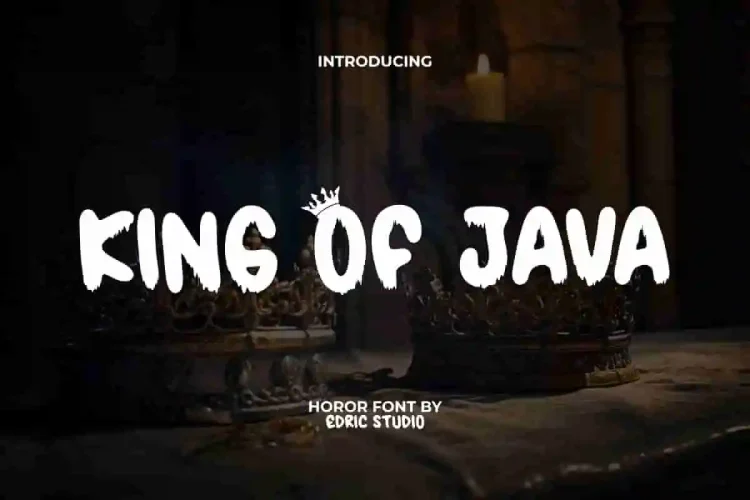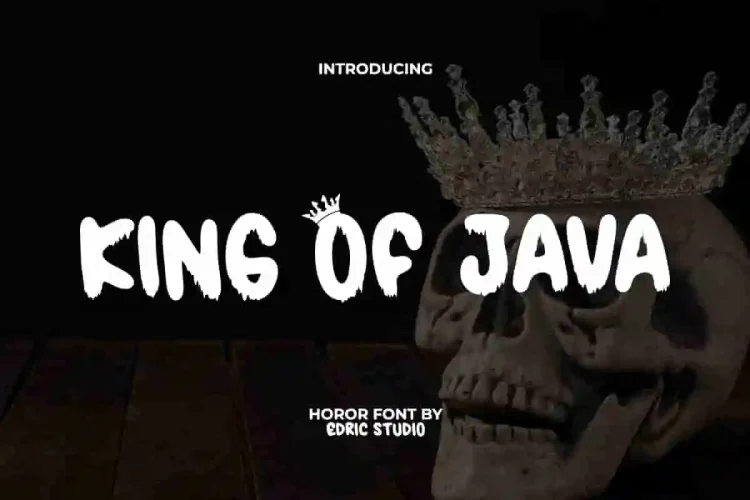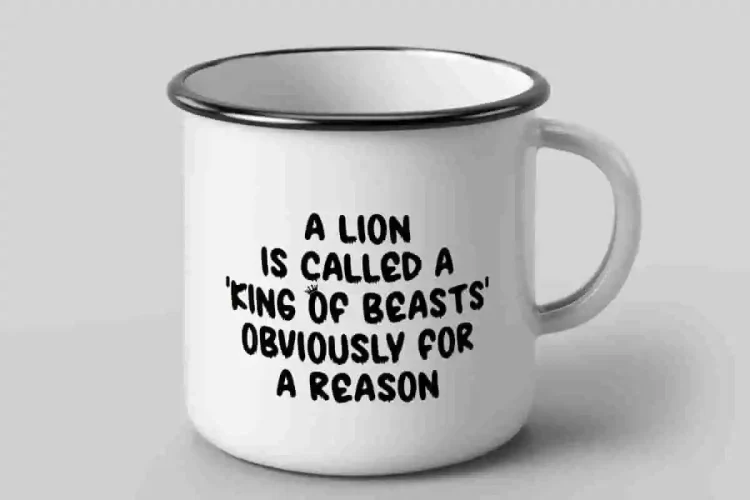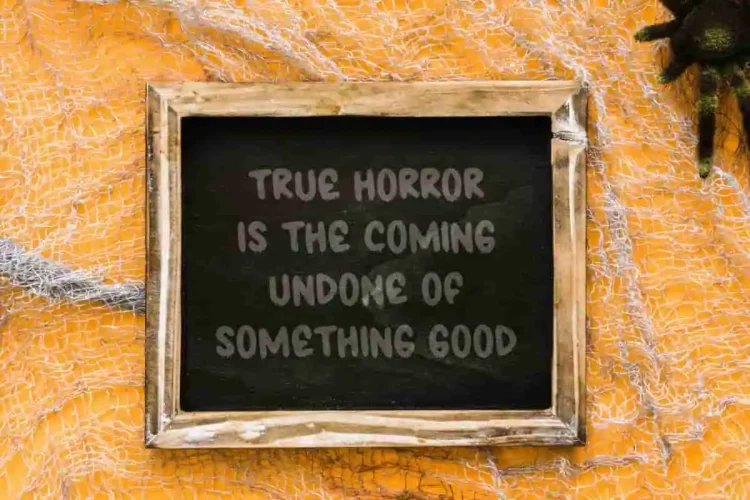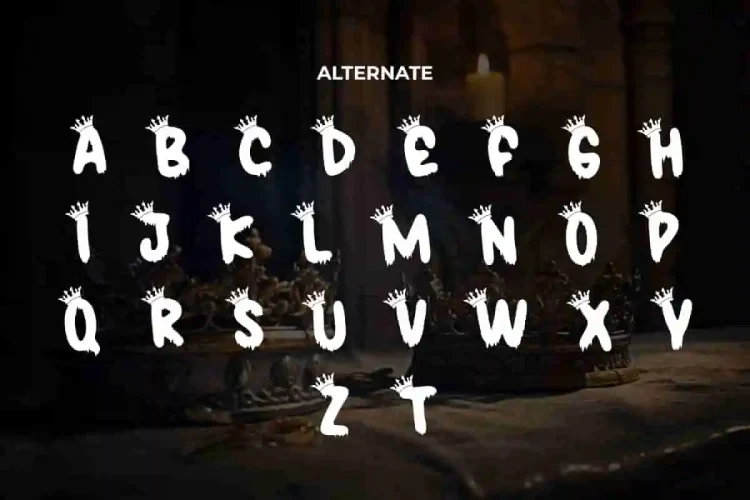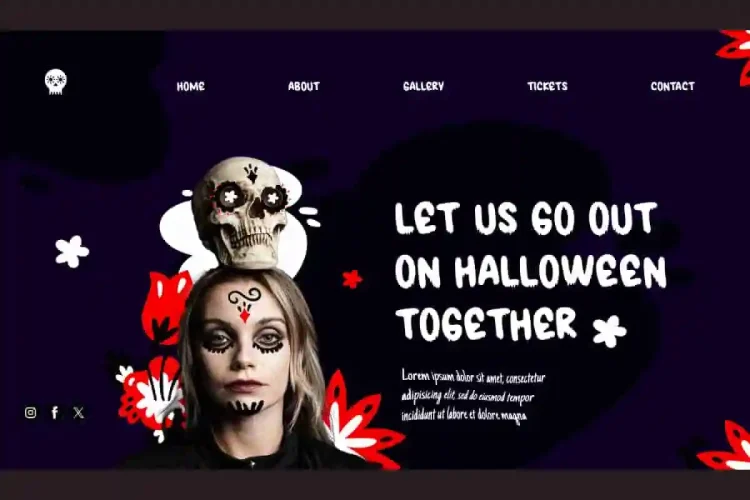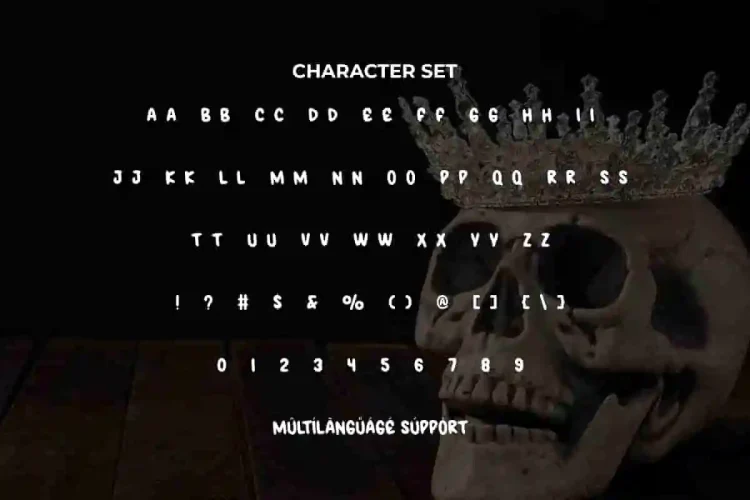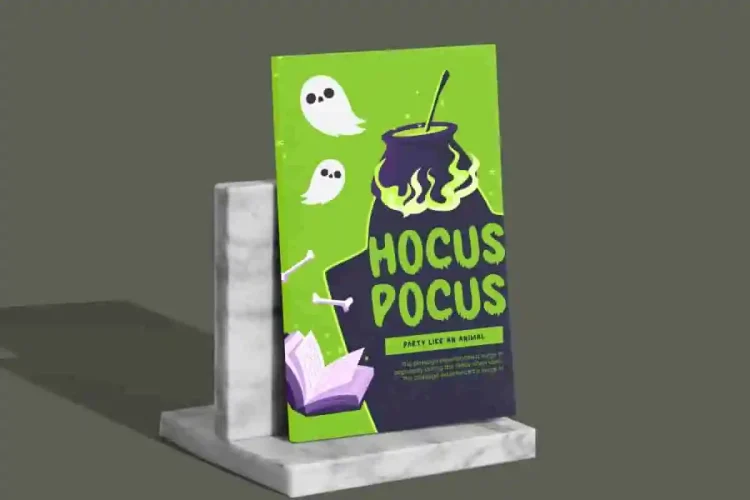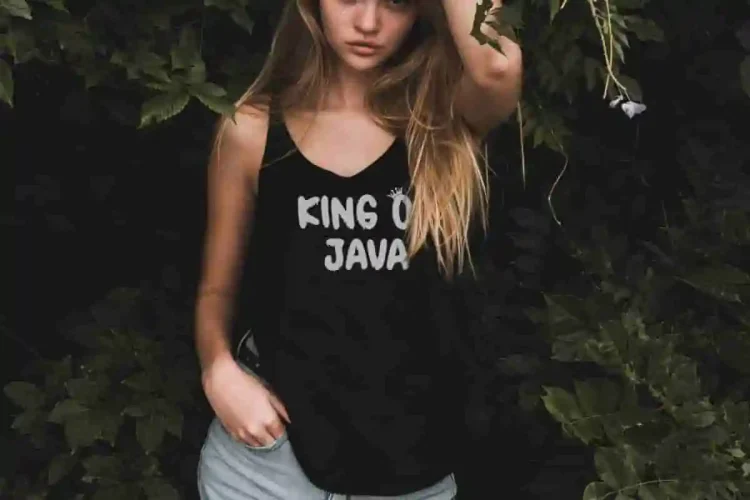
King Of Java Font is an attractive playful gaming inspired fun bubble display font. Inspired by comic book lettering and graffiti, this bold design is versatile enough. This font can be used for banners, billboard, blogs, brand logo, brochure, card design, invitation, mockup, poster, printed materials, quotes, stationery, sticker, template, title, website, and more.
King Of Java Font includes a complete set of ALL CAPS for both Uppercase and Lowercase letters, Numbers, Punctuation, Symbols and Alternate. The letterforms are carefully crafted to make them easy to read, wrapped in a mysterious style. Whether used in accessories and gifts, clothing brand, event organizer, fashion, film, games, graphic design, Halloween events, movie, printing, publisher, web designer, etc.